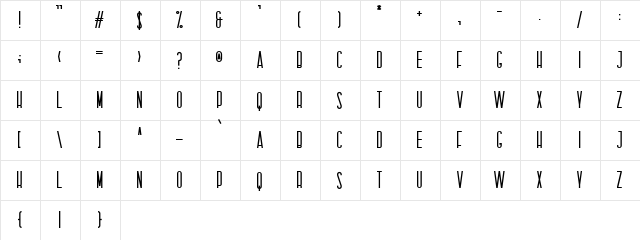
Stephanie Regular
Design Context for Stephanie Typeface
Stephanie is a composed and adaptable typeface that performs quietly and consistently across a wide range of design contexts.
Pro Tip: Pair Stephanie with a font of contrasting weight or personality to build a more expressive typographic hierarchy.